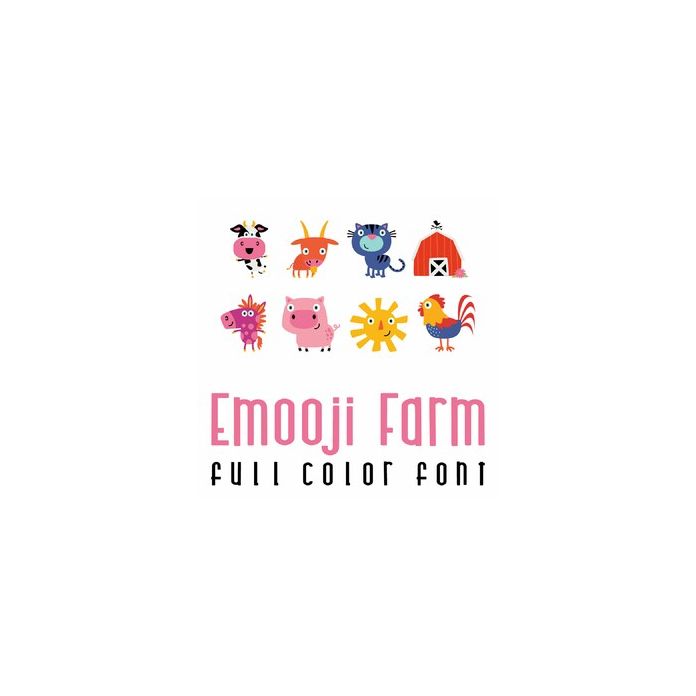
This adorable full-color doodlebat font features 26 cute farm animals and images. Perfect for cards, crafts, gifts, decor, scrapbook pages, planner stickers, and more!